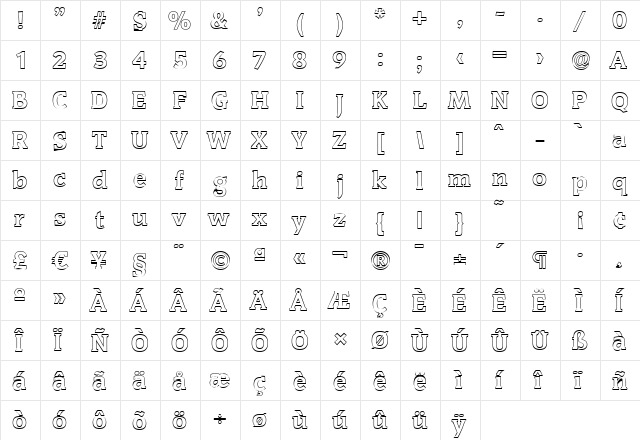
KevinBeckerOutline-ExtraBold Regular Font Preview
KevinBeckerOutline-ExtraBold Regular
Design Context for KevinBeckerOutline-ExtraBold Typeface
KevinBeckerOutline-ExtraBold brings ornamental detail and strong personality to headlines and identities, where visual impact matters more than quiet functionality. The heavy weight commands attention and anchors typographic hierarchies.
Font Pairing: Pair with a clean neutral sans-serif for body copy to let KevinBeckerOutline-ExtraBold's character lead without overwhelming the composition.
Pro Tip: Treat KevinBeckerOutline-ExtraBold as the centrepiece of your typographic hierarchy. One strong heading set in a decorative face can carry an entire layout.